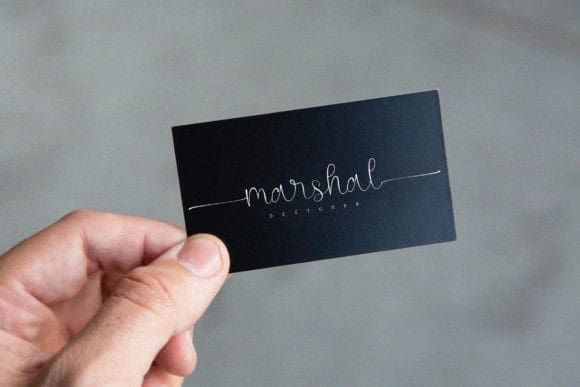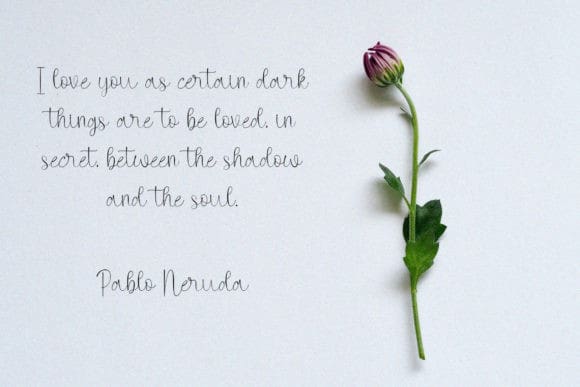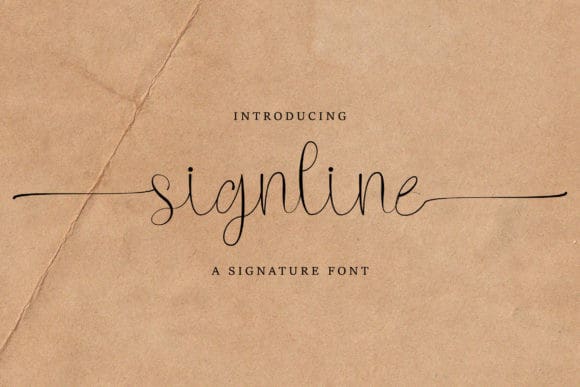
Signline Handwritten Font
Signline Handwritten Font is a delicate and stylish script font. It will add a luxury spark to any design project that you wish to create! This font is PUA encoded which means you can access all of the amazing glyphs and ligatures with ease!